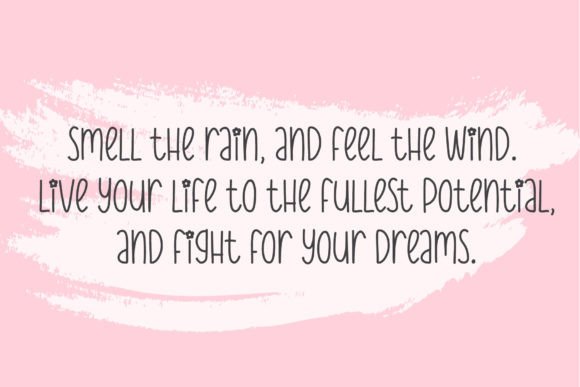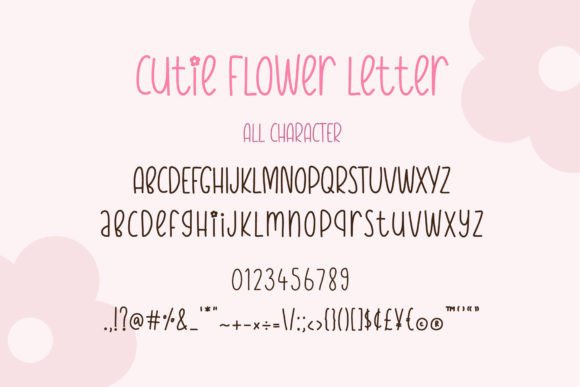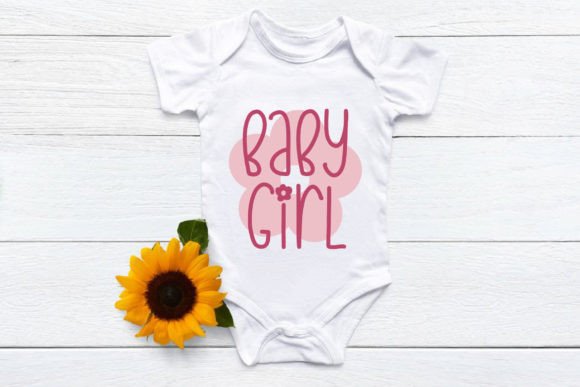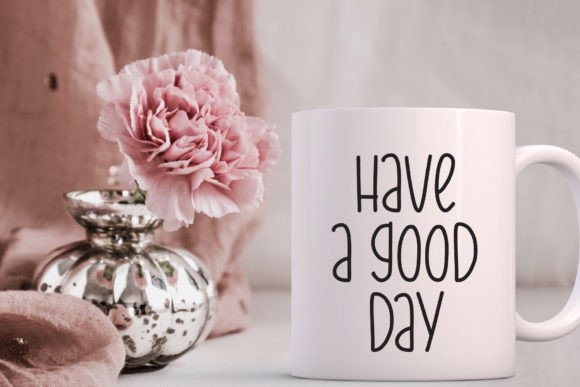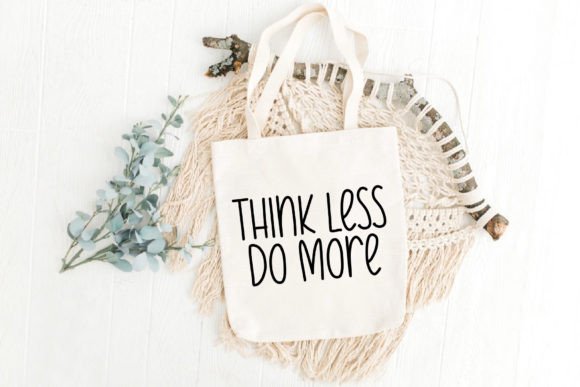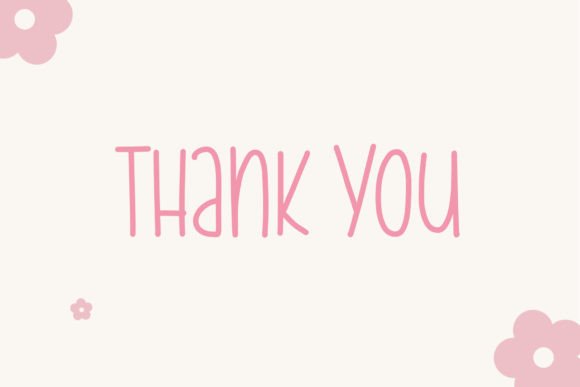
Introducing Cutie Flower Letter Font: The Perfect Addition to Your Design Projects
Are you a designer or crafter looking for a font that can add a touch of whimsy and playfulness to your projects? Look no further than Cutie Flower Letter Font! This adorable handwritten font is perfect for kids and school projects, and is sure to brighten up any design.
What is Cutie Flower Letter Font?
Cutie Flower Letter Font is a cute and friendly handwritten font that is a little bit quirky and playful. Its unique and charming design makes it perfect for a variety of projects, from kids’ party invitations to school posters and presentations.
Key Features of Cutie Flower Letter Font
- Cute and Friendly Design: Cutie Flower Letter Font has a sweet and approachable design that is sure to delight kids and adults alike.
- Handwritten Style: This font has a lovely handwritten feel that adds a personal touch to any project.
- Quirky and Playful: With its unique and playful design, Cutie Flower Letter Font is perfect for projects that require a bit of whimsy and fun.
- Easy to Read: Despite its playful design, Cutie Flower Letter Font is easy to read and understand, making it perfect for projects that require clear communication.
Uses for Cutie Flower Letter Font
Cutie Flower Letter Font is a versatile font that can be used for a wide range of projects, including:
- Kids’ Party Invitations: Add a touch of whimsy and fun to your kids’ party invitations with Cutie Flower Letter Font.
- School Posters and Presentations: Use Cutie Flower Letter Font to create eye-catching posters and presentations for school projects.
- Crafting Projects: Add a personal touch to your crafting projects, such as handmade cards and gift tags, with Cutie Flower Letter Font.
- Social Media Graphics: Use Cutie Flower Letter Font to create fun and engaging social media graphics, such as quote graphics and announcement posts.
Why Choose Cutie Flower Letter Font?
There are many fonts to choose from, but Cutie Flower Letter Font stands out for its unique and charming design. Here are just a few reasons why you should choose Cutie Flower Letter Font for your next project:
- Unique Design: Cutie Flower Letter Font has a one-of-a-kind design that is sure to make your projects stand out.
- Versatile: Cutie Flower Letter Font can be used for a wide range of projects, from kids’ party invitations to social media graphics.
Tips for Using Cutie Flower Letter Font
Here are a few tips for getting the most out of Cutie Flower Letter Font:
- Use it with Bright Colors: Cutie Flower Letter Font looks great with bright, bold colors, so don’t be afraid to get creative with your color palette.
- Pair it with Other Fonts: Experiment with pairing Cutie Flower Letter Font with other fonts to create a unique and eye-catching design.
- Use it for Headings and Titles: Cutie Flower Letter Font is perfect for headings and titles, so use it to add a touch of whimsy and fun to your projects.